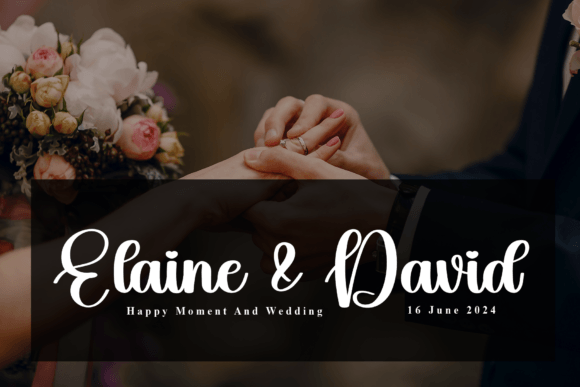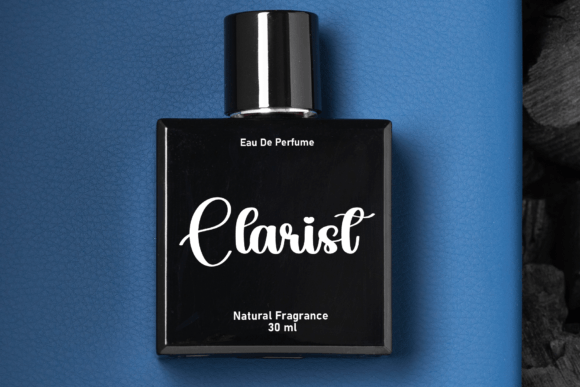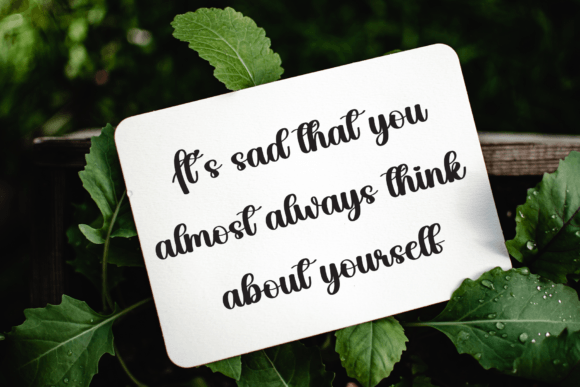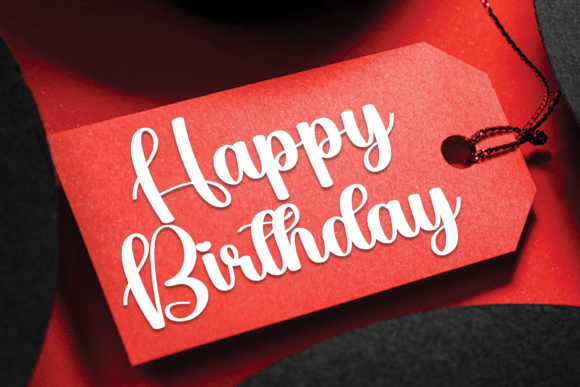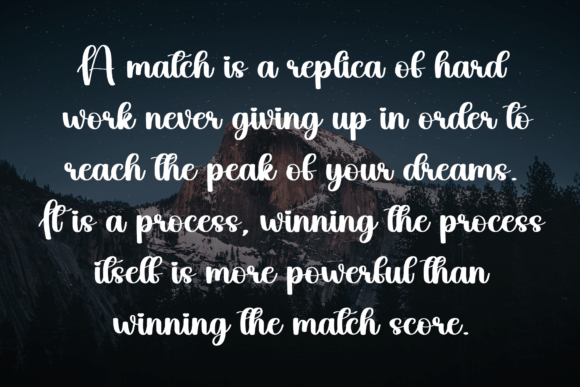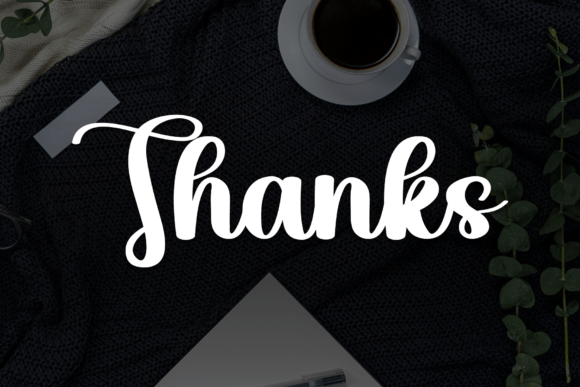
Introducing Black Sunday Font: Elevate Your Designs with Elegance and Sophistication
In the world of typography, few fonts manage to capture the essence of elegance and sophistication as effortlessly as the Black Sunday Font. This stylish and incredibly elegant script font has been making waves in the design community, and for good reason. Whether you’re working on wedding invitations, thank you cards, quotes, greeting cards, logos, business cards, or any other design that requires a touch of handwritten charm, Black Sunday Font is the perfect choice.
The Characteristics of Black Sunday Font
Black Sunday Font is a script font that exudes luxury and refinement. Its fluid strokes and intricate details give it a unique, handcrafted feel that sets it apart from more generic fonts. The font features:
- Elegant Ligatures: Black Sunday Font includes a range of elegant ligatures that add a touch of sophistication to any text.
- Flowing Strokes: The font’s flowing strokes give it a dynamic, handwritten feel that’s perfect for designs that require a personal touch.
- Intricate Details: From the subtle flourishes to the delicate connections between letters, Black Sunday Font is full of intricate details that make it a joy to use.
Uses for Black Sunday Font
One of the best things about Black Sunday Font is its versatility. This font can be used for a wide range of design projects, including:
- Wedding Invitations: Add a touch of elegance to your wedding invitations with Black Sunday Font.
- Thank You Cards: Express your gratitude in style with this beautiful script font.
- Quotes: Make your quotes stand out with the elegant and sophisticated look of Black Sunday Font.
- Greeting Cards: Whether it’s a birthday, anniversary, or holiday greeting, Black Sunday Font is the perfect choice.
- Logos: Add a touch of luxury to your logo with this stunning script font.
- Business Cards: Make a lasting impression with Black Sunday Font on your business cards.
Why Choose Black Sunday Font?
With so many fonts available, why choose Black Sunday Font? Here are just a few reasons:
- Unique and Exclusive: Black Sunday Font is a unique and exclusive font that will set your designs apart from the rest.
- Elegant and Sophisticated: This font exudes elegance and sophistication, making it perfect for high-end designs.
- Easy to Use: Black Sunday Font is easy to use and comes with a range of features that make it simple to incorporate into your designs.
Tips for Using Black Sunday Font
To get the most out of Black Sunday Font, here are a few tips:
- Use it Sparingly: Because Black Sunday Font is so elegant and sophisticated, it’s best to use it sparingly. Use it for headings, titles, or special text to add a touch of luxury to your design.
- Pair it with a Simple Font: Pair Black Sunday Font with a simple font to create a striking contrast that will make your design stand out.
- Experiment with Colors: Black Sunday Font looks stunning in a range of colors, so don’t be afraid to experiment and find the perfect hue for your design.
Black Sunday Font is a stylish and incredibly elegant script font that’s perfect for designers and crafters looking to add a touch of luxury to their designs. With its flowing strokes, intricate details, and elegant ligatures, this font is sure to impress. Whether you’re working on wedding invitations, thank you cards, quotes, greeting cards, logos, business cards, or any other design that requires a handwritten touch, Black Sunday Font is the perfect choice.